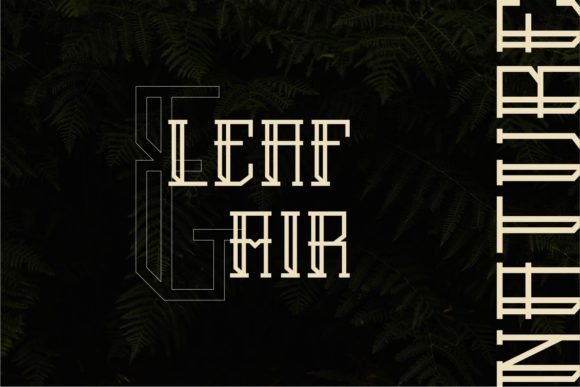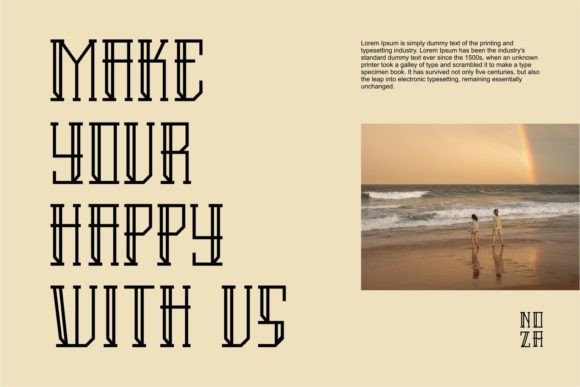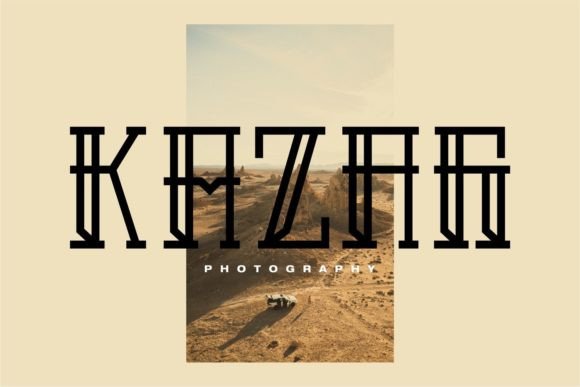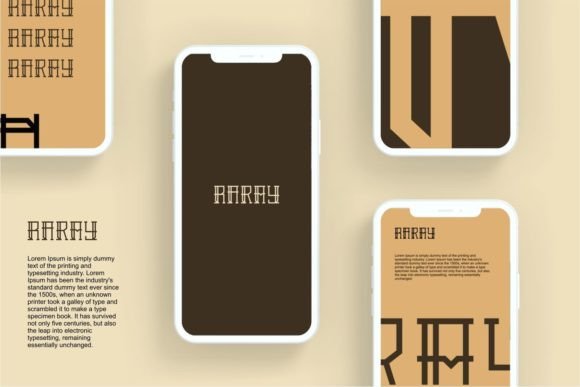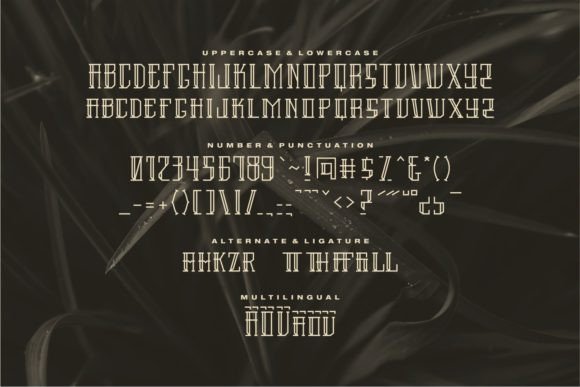
Introduction to Noza Font
Noza is a stylish, professional-looking display font.
Incredibly versatile, this font will help you create stunning designs that will definitely impress any audience .
Key Features of Noza Font
Why Choose Noza Font?
Noza Font offers exceptional quality and versatility, making it a valuable addition to your design toolkit. Whether you’re creating for personal projects or commercial use, Noza Font delivers professional results.